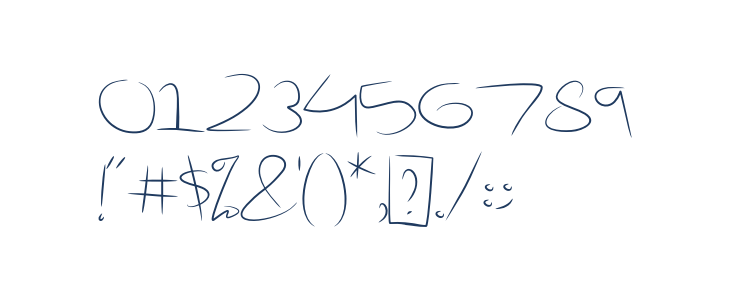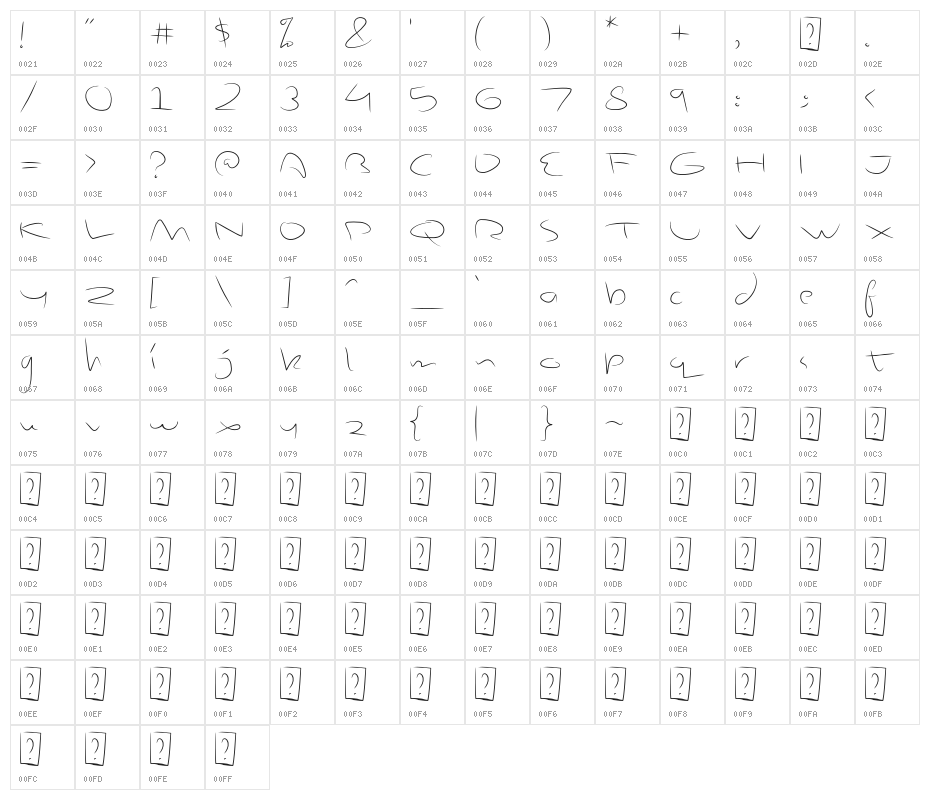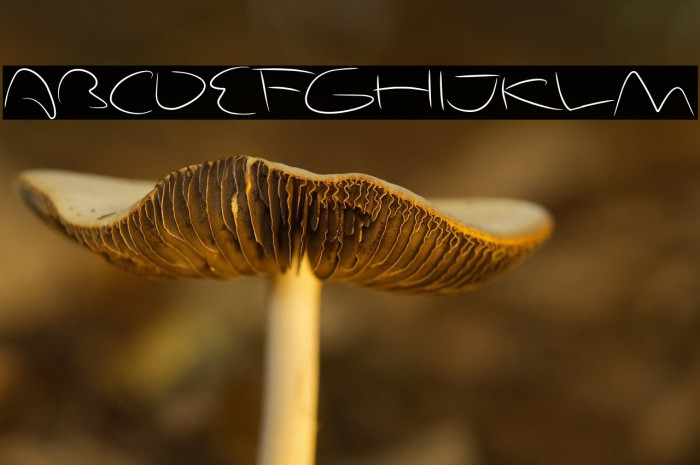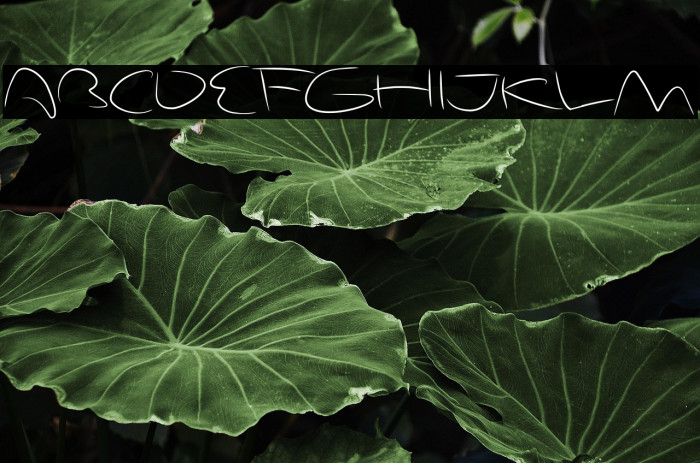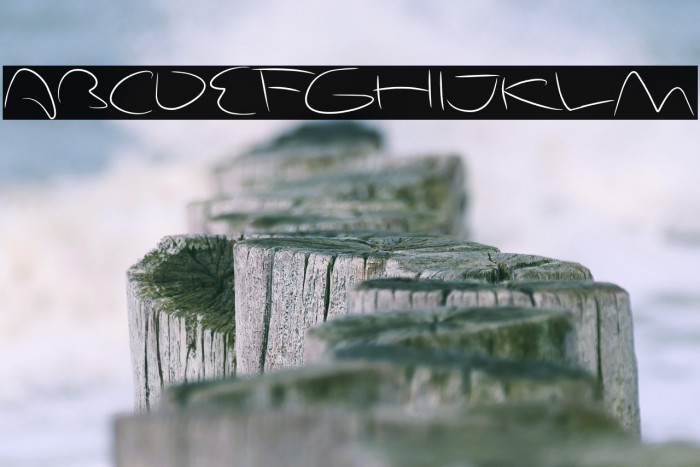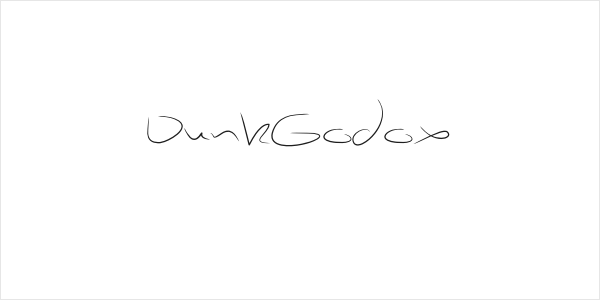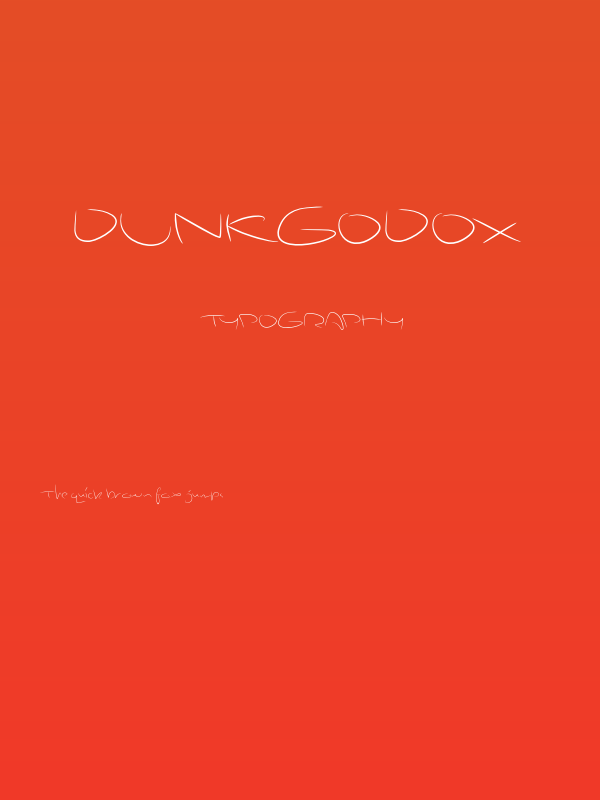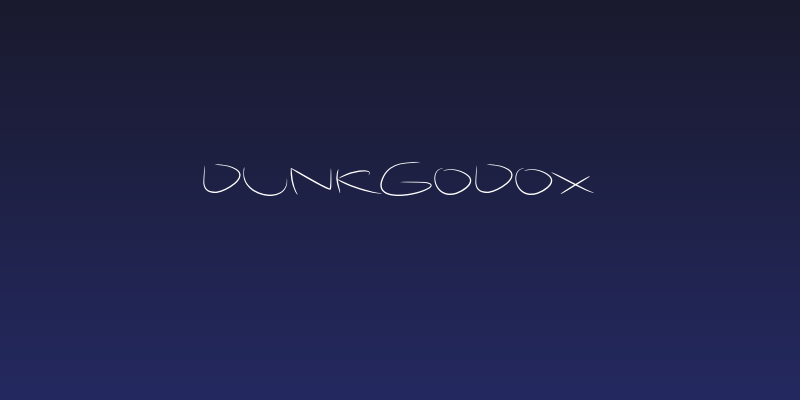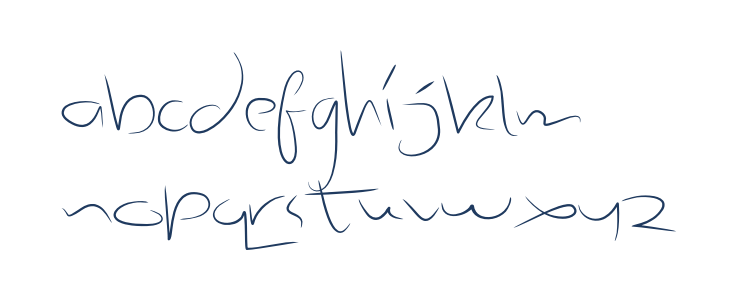
DunkGodox Font
DunkGodox Description
This font features a dynamic and fluid handwritten style, characterized by its elongated and sweeping strokes. The uppercase letters exhibit a playful yet elegant flair, with varying line thickness that adds a sense of movement and energy. The lowercase letters maintain a consistent flow, complementing the uppercase with their smooth curves and loops. Numbers and special characters follow the same aesthetic, ensuring a cohesive look across all text elements. The overall design is both artistic and legible, making it suitable for creative and expressive applications.
| Proposed Projects | Ideal for creative projects such as invitations, greeting cards, branding, and artistic posters. |